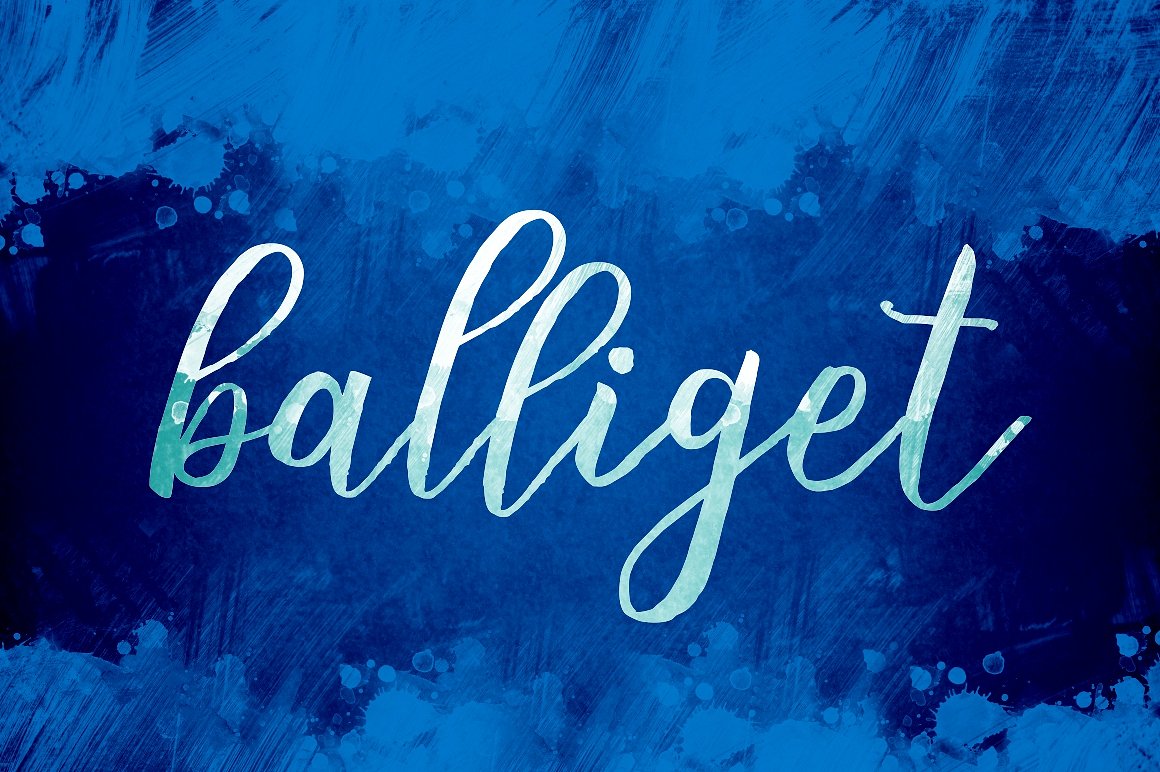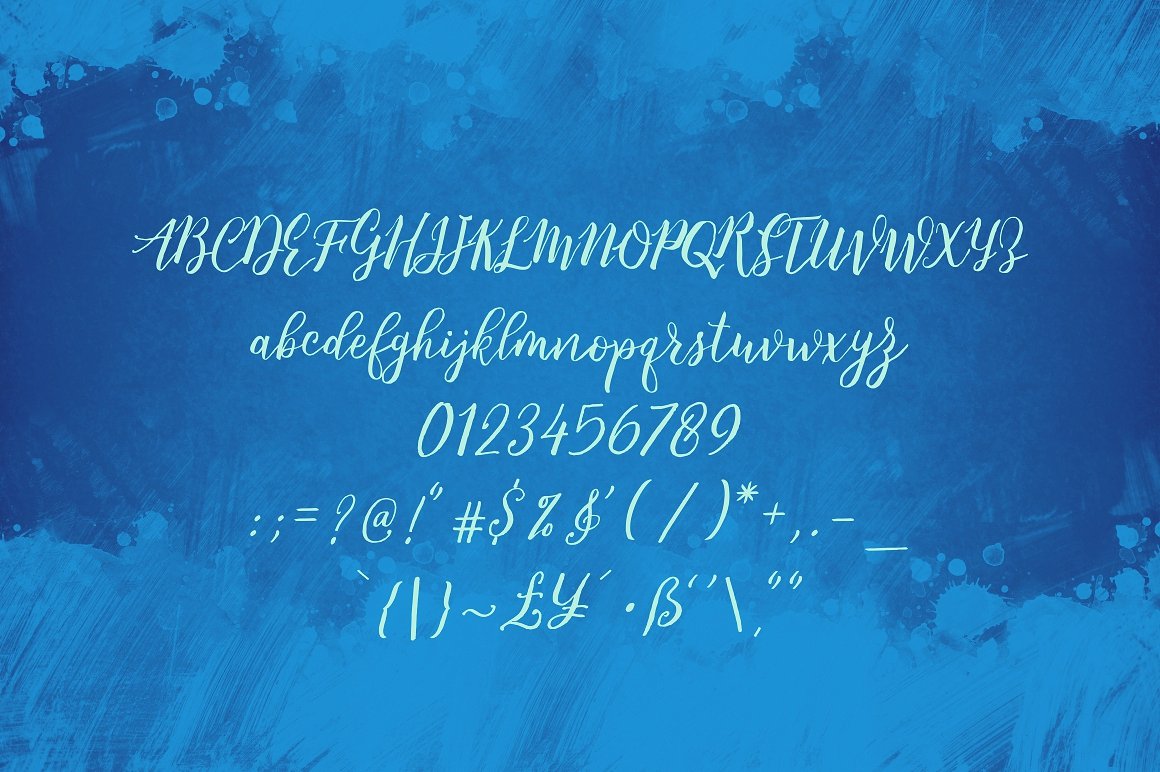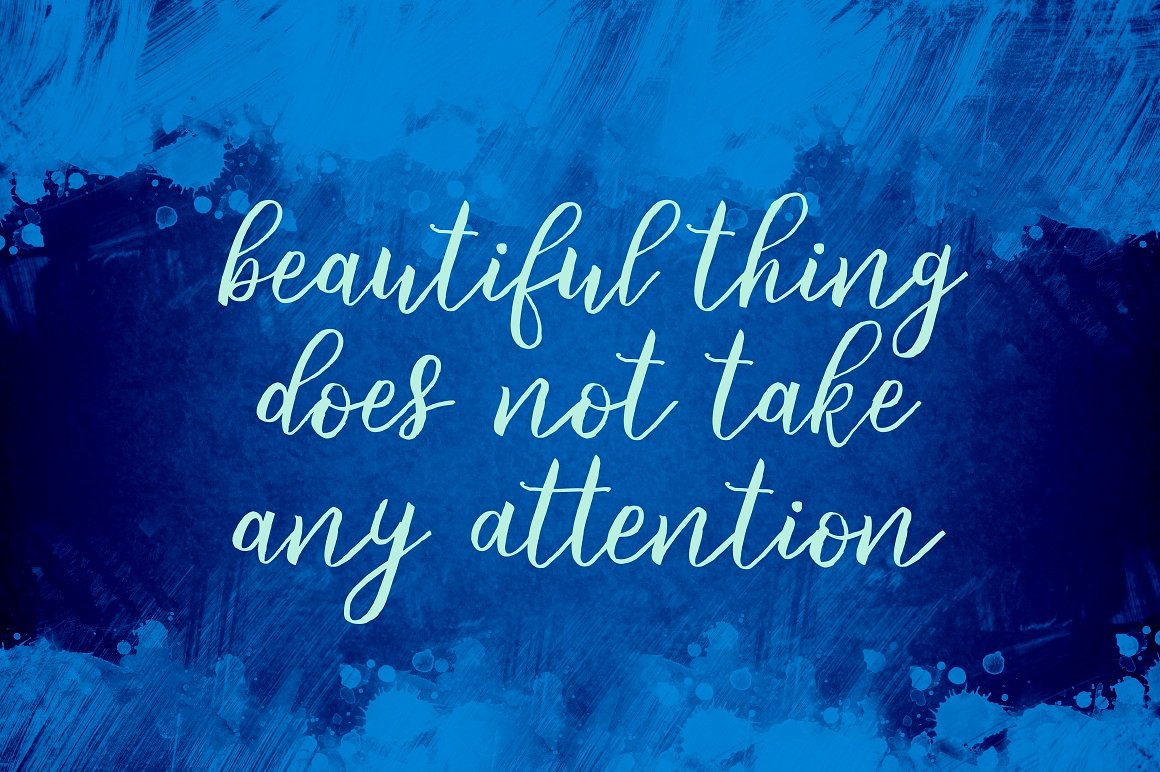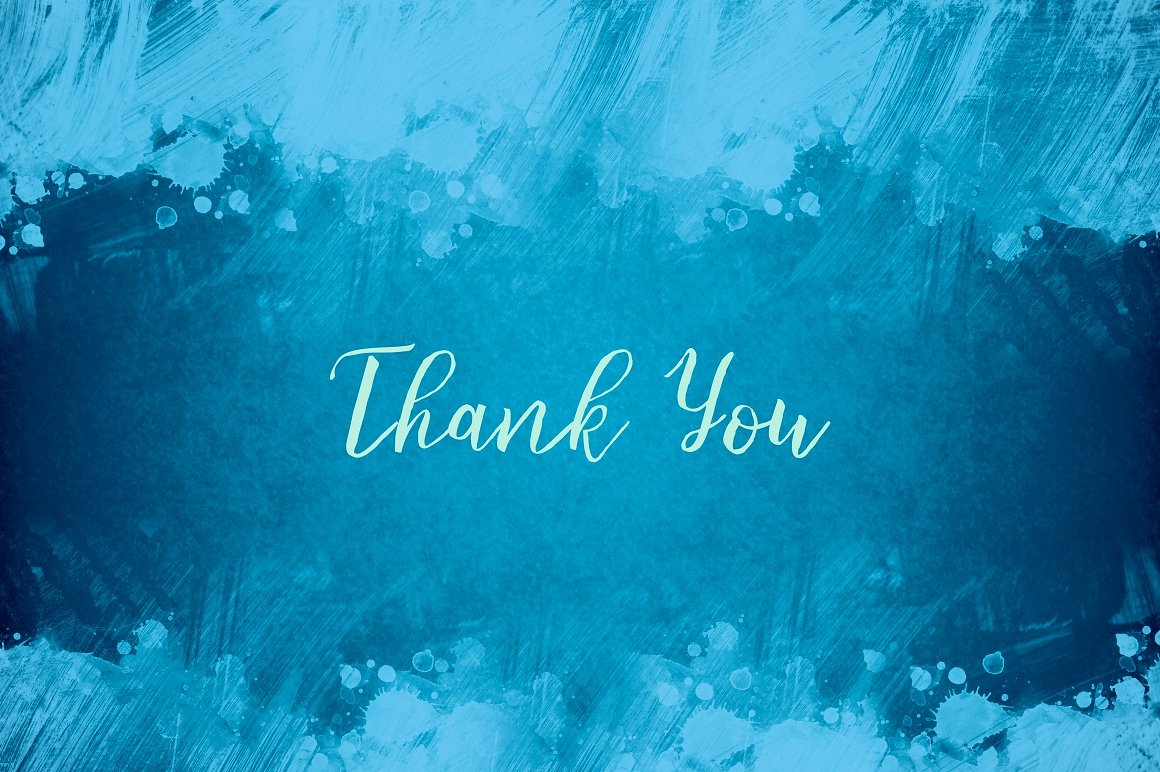
Balliget Font
About Balliget Font
Balliget is a stunning handmade brush script. This font has a contemporary approach to design with a natural look and flow, making it suitable for a wide range of project types.